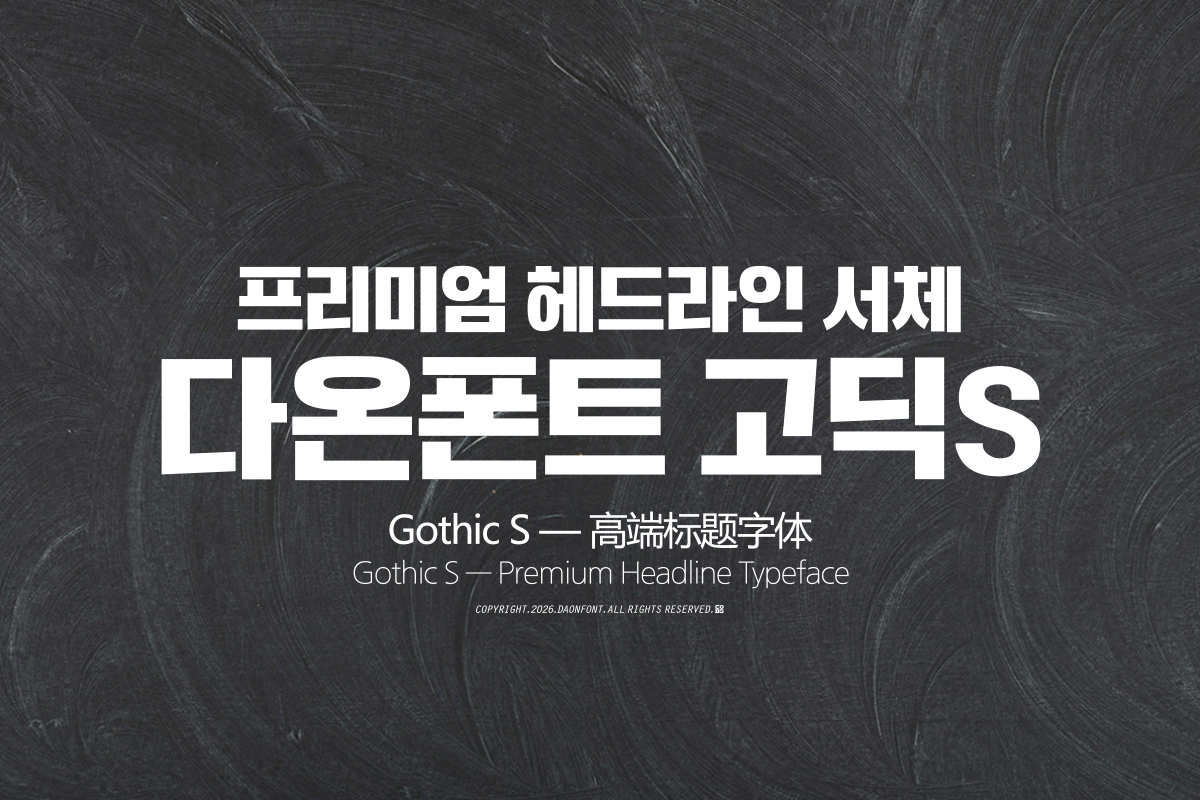
DAON GOTHIC S
DaonFont 'Gothic S' is a square Gothic headline typeface that conveys a strong presence based on thick and solid strokes. Combining a stable character structure with substantial weight, it leaves a powerful impression even with short phrases. With an overall powerful and clear atmosphere, it delivers the message of your content more confidently and distinctly.